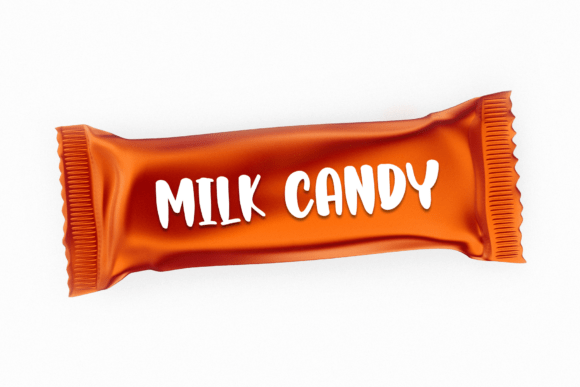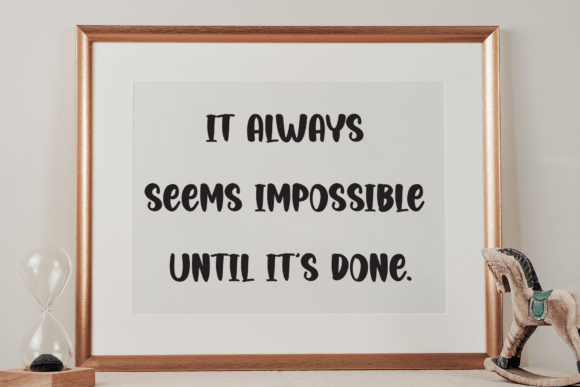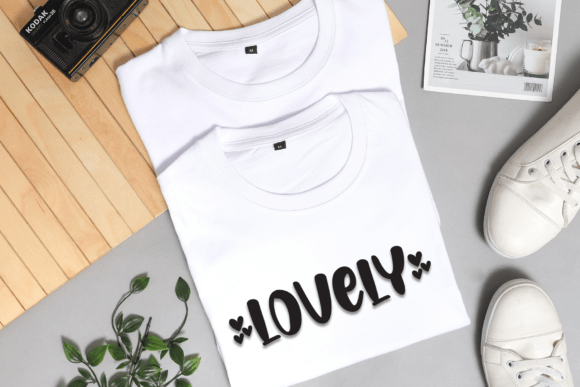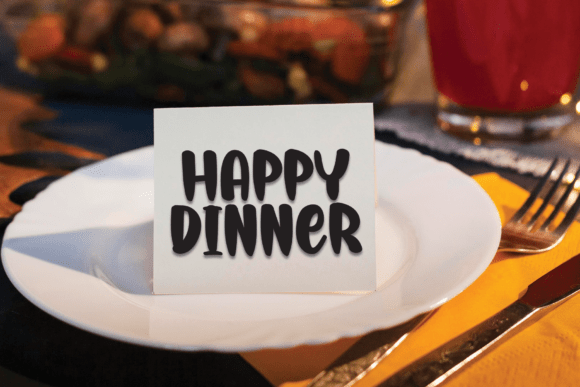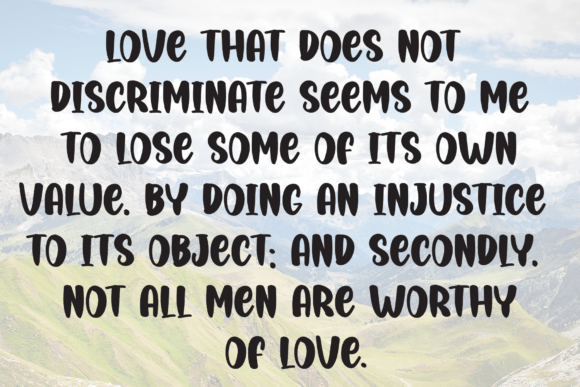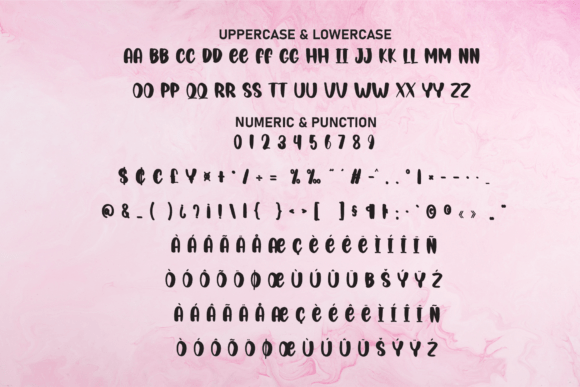
Meet Your New Best Friend: Barbie Font
Have you ever been brainstorming a new project and suddenly, the perfect font pops into your mind? It’s like a spark of creativity that ignites the whole design process. For many designers, finding that special font can be the game-changer that elevates their work from good to great. And that’s exactly what the Barbie Font does – it adds a touch of personality and charm to any design.
This display handwritten font is designed to stand out while maintaining a natural flow, making it perfect for logos, social media graphics, posters, and more. Its bold, eye-catching strokes capture the warmth of real handwriting, bringing authenticity and flair to your design. Whether you’re crafting a heartfelt quote or branding a creative product, the Barbie Font is the perfect tool to help you connect with your audience on a deeper level.
Barbie Font Key Features
- Font Family: Barbie is a sans-serif font, designed to resemble the iconic font used in the Barbie brand.
- Unique Characteristics: The font features a distinctive rounded edge and a friendly, approachable feel, making it perfect for children’s brands and family-friendly content.
Barbie Font Review
As a designer, I was excited to dive into the Barbie Font, a playful and whimsical sans-serif font. Here’s my honest review.
- Unique aesthetic: The font has a distinct and feminine look, perfect for brands targeting a young audience or those in the fashion industry.
- Wide range of styles: The font family includes various weights, from light to bold, allowing for versatility in design applications.
- Fun and creative: The Barbie Font is perfect for projects that require a touch of playfulness, such as children’s books, magazines, or social media graphics.
- Not ideal for serious or professional designs: The font’s playful nature may not be suitable for corporate or academic projects, which require a more formal tone.
- Limited legibility: The font’s unique shape and style may make it challenging to read in certain contexts, such as in small sizes or at a distance.
The Barbie Font is a delightful and creative addition to any designer’s toolkit. While it may not be the best choice for every project, it’s perfect for those requiring a fun and feminine touch. With its wide range of styles and unique aesthetic, this font is sure to bring a smile to your design projects.
To get the most out of the Barbie Font, consider the following tips:
- Use the font for creative projects, such as posters, flyers, or social media graphics.
- Pair the font with bright and bold colors to create a playful and eye-catching design.
The Barbie Font is commonly used for:
- Children’s products and packaging.
- Toy and game branding.
- Fashion and beauty marketing materials.
Alternatives to Barbie Font for Designers
Pacifico is a beautiful, elegant script font that is perfect for creating a luxurious and sophisticated look. It’s ideal for use in branding, advertising, and packaging designs. Pacifico is a more refined and polished alternative to the Barbie Font, with a more subtle and sophisticated feel.
Comparison: Pacifico has a more refined and elegant feel compared to the Barbie Font, which is more playful and childish. Pacifico is a better choice for designs that require a more mature and sophisticated look.
Great Vibes is a beautiful, hand-drawn script font that is perfect for creating a fun and playful look. It’s ideal for use in branding, advertising, and social media designs. Great Vibes is a more whimsical and playful alternative to the Barbie Font, with a more carefree and youthful feel.
Comparison: Great Vibes has a more playful and whimsical feel compared to the Barbie Font, which is more elegant and sophisticated. Great Vibes is a better choice for designs that require a more fun and playful look.